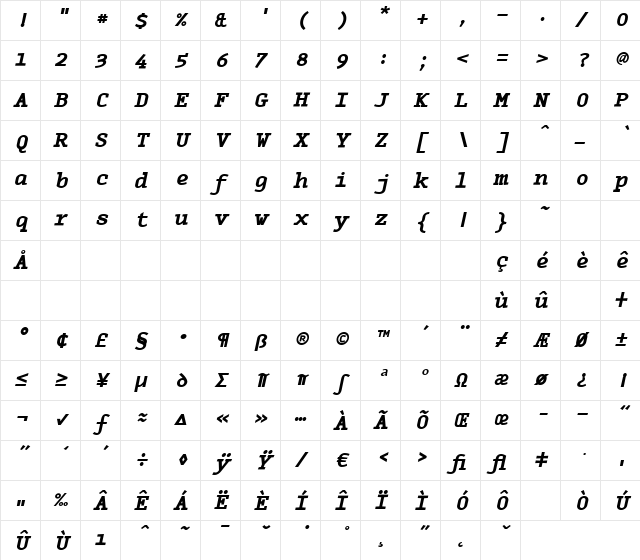
MonoxSerifExtraBoldItalic Regular
Foundry: Dino dos Santos _ DSType
Design Context for MonoxSerifExtraBoldItalic
MonoxSerifExtraBoldItalic uses fixed-width spacing throughout, giving it the structured, systematic character associated with coding environments and technical documentation. The slanted form adds forward momentum and visual energy. Its bold stroke weight gives it real presence on the page.
Pro Tip: Use MonoxSerifExtraBoldItalic with slightly increased line-height for extended reading - fixed-width spacing can feel dense in longer passages without extra breathing room.
Who designed the MonoxSerifExtraBoldItalic Regular font?